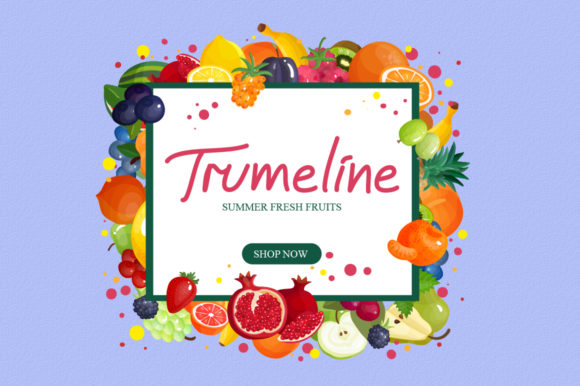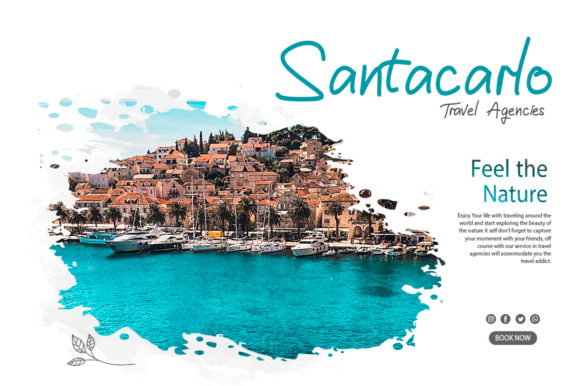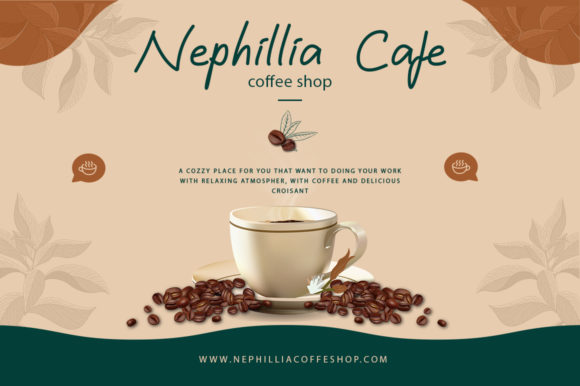
Molecules Font – Free Download
Introduction to Molecules Font
Molecules is an elegant script font, that features a very delicate and classy look.
Not too thin and not too thick, balanced and varied, Molecules was designed to enhance the beauty of your projects This font is PUA encoded which means you can access all of the glyphs and swashes with ease.
Key Features of Molecules Font
Why Choose Molecules Font?
Molecules Font offers exceptional quality and versatility, making it a valuable addition to your design toolkit. Whether you’re creating for personal projects or commercial use, Molecules Font delivers professional results.